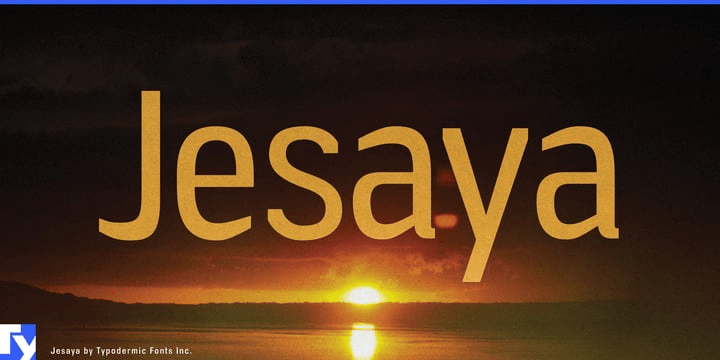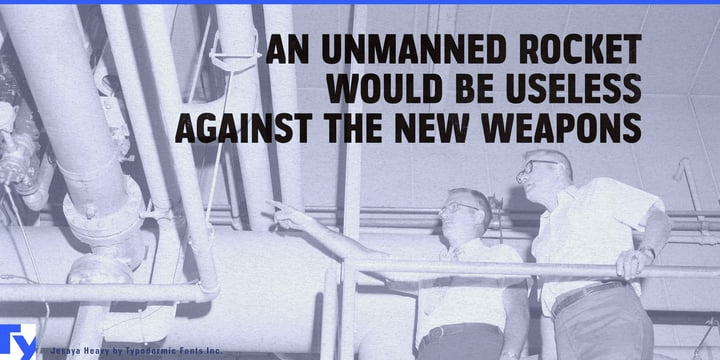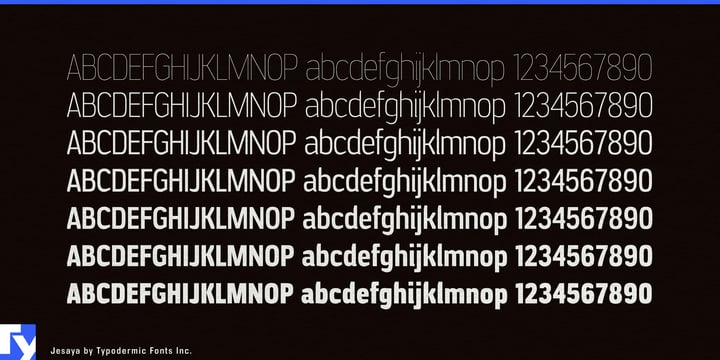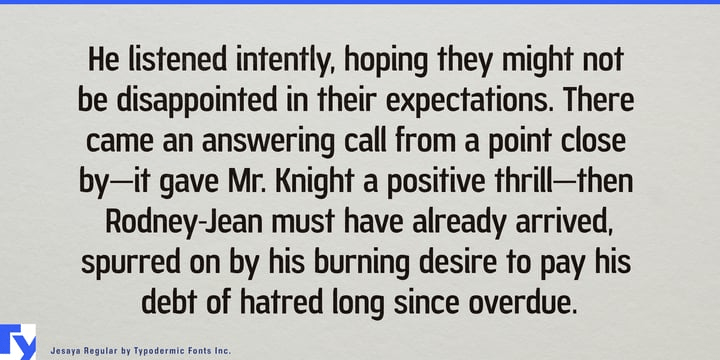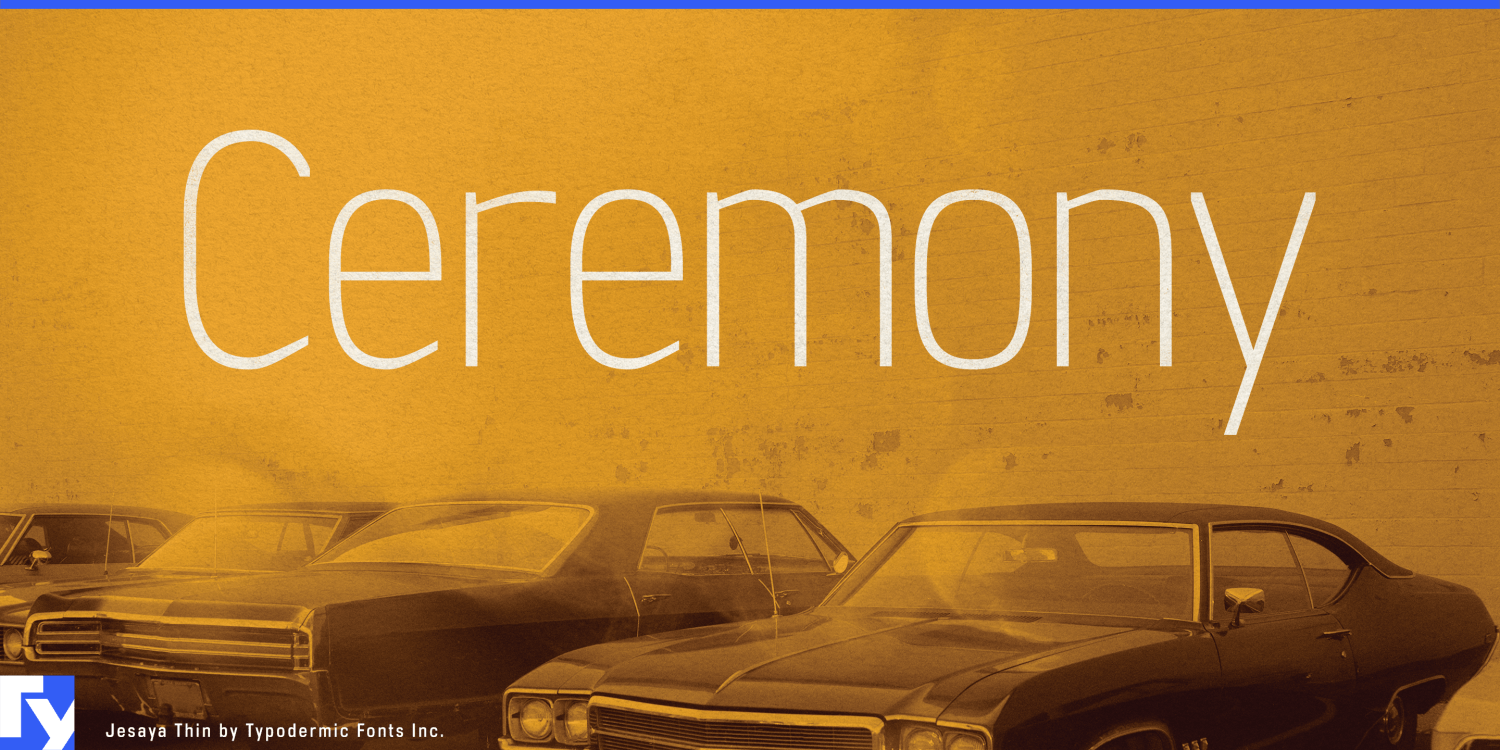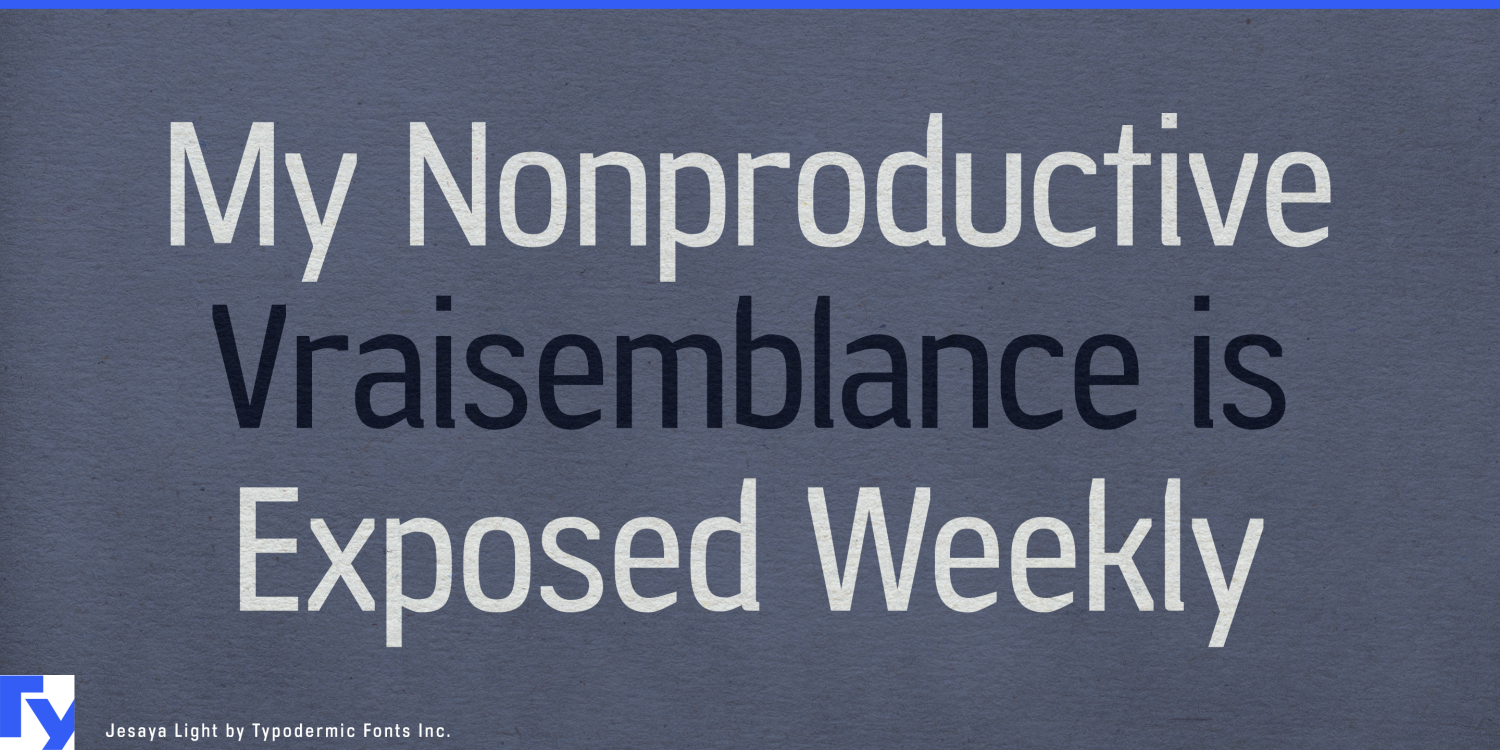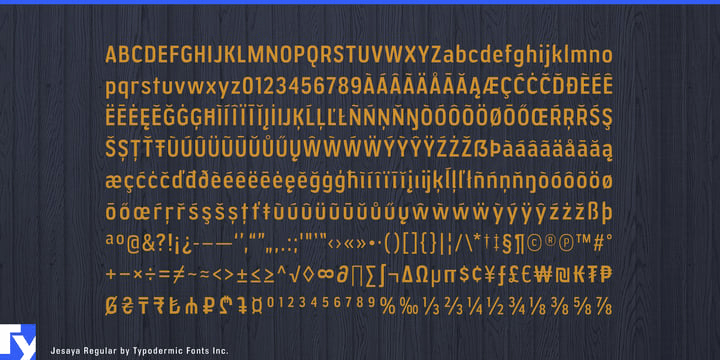
Jesaya
Real engineering is often branded with type that says almost nothing about the object. A conventional grotesque looks competent but interchangeable; an overt technological face can make serious equipment resemble a fictional prototype. Jesaya occupies the space between them. Its familiar grotesque structure is altered by trimmed points, angled joins and distinctive stroke endings, giving the letters the controlled finish of something cut, formed and assembled.
Open counters and recognizable proportions keep product names and short explanations direct, while the unusual terminals prevent the typography from disappearing into generic industrial branding. Jesaya can establish an equipment family, model designation or section heading; a quieter companion face can carry specifications, instructions and dense operational data.
Electrification hardware gives that balance a practical role. Home batteries, commercial storage systems, inverters, EV chargers, heat pumps and microgrid controls increasingly occupy visible architectural and customer-facing spaces. Jesaya can carry product badges, equipment-series names, installation-guide headings, dealer graphics and monitoring-screen titles. Its altered edges harmonize with fabricated housings, panel seams, vents and protective enclosures without imitating any one product.
Precision manufacturing provides an even closer visual setting. CNC machinery, metrology systems, robotic fabrication, cutting tools and surface-finishing equipment belong to a world of controlled tolerances and deliberate edge treatment. Jesaya was not derived from machining, but its terminals sit naturally beside objects that have been cut, deburred, chamfered and prepared for assembly. Machine-housing names, tooling catalogues, component-family identities and process demonstrations gain a specific industrial character without theatrical techno lettering.
Architectural products extend the same idea into building systems. Façade panels, extruded profiles, modular walls, acoustic systems, prefabricated components, doors, windows and architectural hardware are defined by joints, edges and repeatable parts. Jesaya can identify system families across sample binders, specification covers, showroom graphics, product catalogues and full-scale demonstration assemblies.
Jesaya is a grotesque that appears to have undergone one additional production step. It retains the familiarity needed for real products and serious engineering, then gives selected corners, joins and stroke endings a manufactured finish.